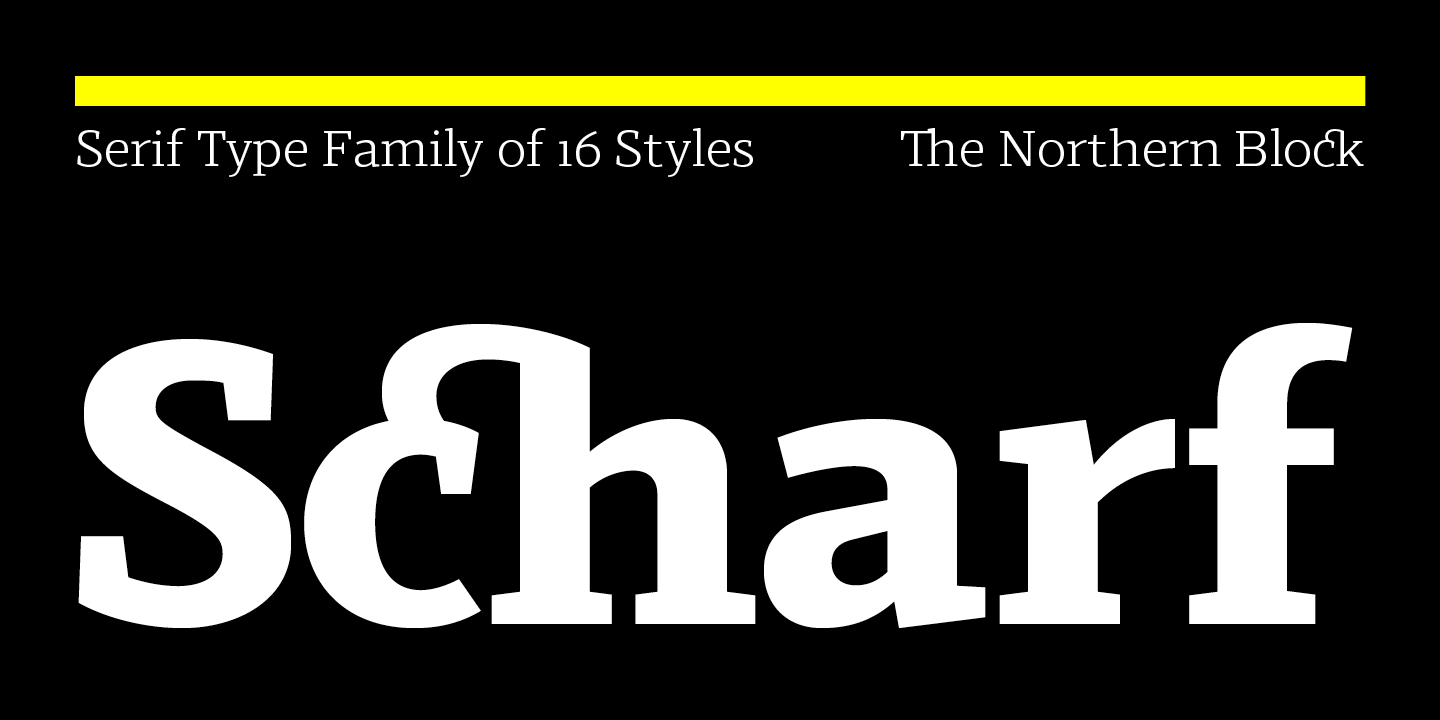
The Scharf Font is perfect for precision engineering branding, sharp technology designs, cutting-edge industrial applications, modern architectural layouts, automotive marketing, high-tech product packaging, and contemporary corporate communications. This versatile typeface excels in technology companies, engineering firms, industrial manufacturers, precision tool brands, and any organization seeking to communicate sharpness, accuracy, and cutting-edge innovation in their visual communications.
What makes Scharf Font so exciting is its razor-sharp, precise character that perfectly captures the essence of accuracy and technological precision while maintaining exceptional clarity and professional impact. The font features crisp letterforms with sharp angles, clean geometric lines, and precise proportions that create an immediate sense of technical excellence and reliability. Its sharp design philosophy makes it ideal for brands that want to communicate precision, innovation, and the kind of cutting-edge quality that defines industry-leading performance.
The Scharf Font family includes comprehensive weight variations: Thin, Light, Regular, Medium, Semi Bold, Bold, Extra Bold, and Black versions, each available in upright and italic styles. Additionally, it offers angular alternates, technical decorative elements, and precision-inspired flourishes that enhance the font's sharp appeal. The family includes extended character sets with multilingual support and specialized glyphs for technical and industrial design applications.
When you choose Scharf Font Free Download, you're investing in a typeface that embodies precision and technological excellence while ensuring exceptional functionality across all modern applications. This font seamlessly combines sharp design elements with contemporary typography requirements, making it perfect for both digital interfaces and traditional print applications. The carefully engineered letterforms maintain perfect legibility while the distinctive sharp qualities create memorable brand experiences that resonate with audiences seeking cutting-edge solutions and precision performance.
Whether you're developing high-tech brand identities, creating precision marketing materials, designing industrial communications, or establishing a visual identity that celebrates technological advancement and engineering excellence, this font delivers outstanding clarity and modern appeal. The Scharf Font transforms your content into sharp communications that cut through the noise and reinforce your brand's commitment to precision, innovation, and the relentless pursuit of technical perfection.